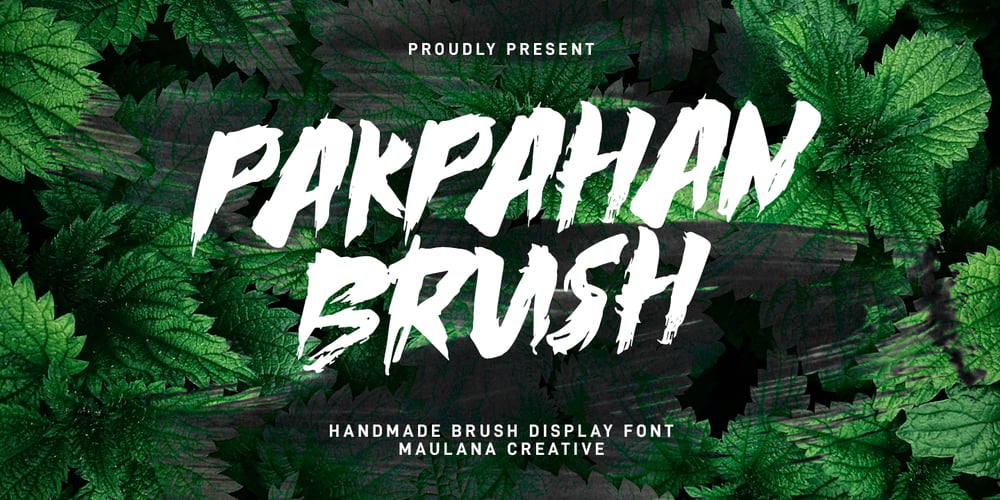
MC Pakpahan Font Family was designed by Gilang Maulana and published by Maulana Creative. MC Pakpahan contains 1 styles and family package options. Pakpahan is a brush display font. Heavy brush, fun character with a ligatures and alternates. To give you an extra creative work. Pakpahan font support multilingual language. This font is good for logo design, Social media, Movie Titles, Books Titles, a short text even a long text letter and good for your secondary text font with script or serif. Make a stunning work with Pakpahan font.–UppercaseCheers,Maulana Creative